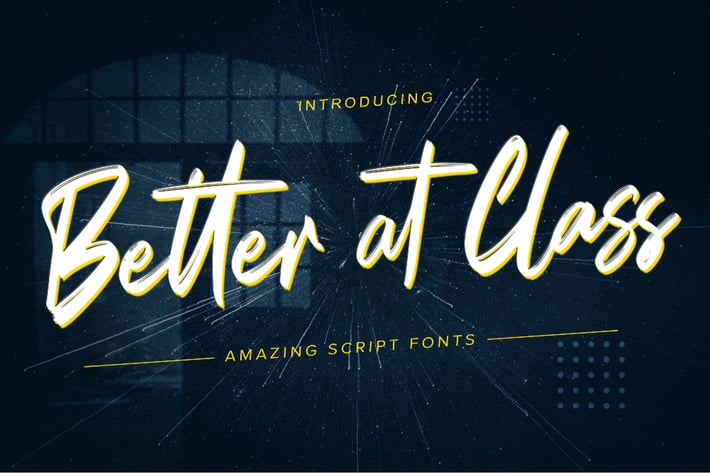
Better at Class - Brush script font
Introducing Better at class – Brush Script is a Authentic brush script that is written casually and quickly. Letters are made with procreate. Then carefully drawn into vector format.
That is why Better at class has charming, authentic and relaxed characteristic more natural look to your text with a more natural look to your text. You can activate Ligature OpenType panel, Better At class Perfect for designs,branding projects, Logo design, Quotes product packaging
+ Ligatures